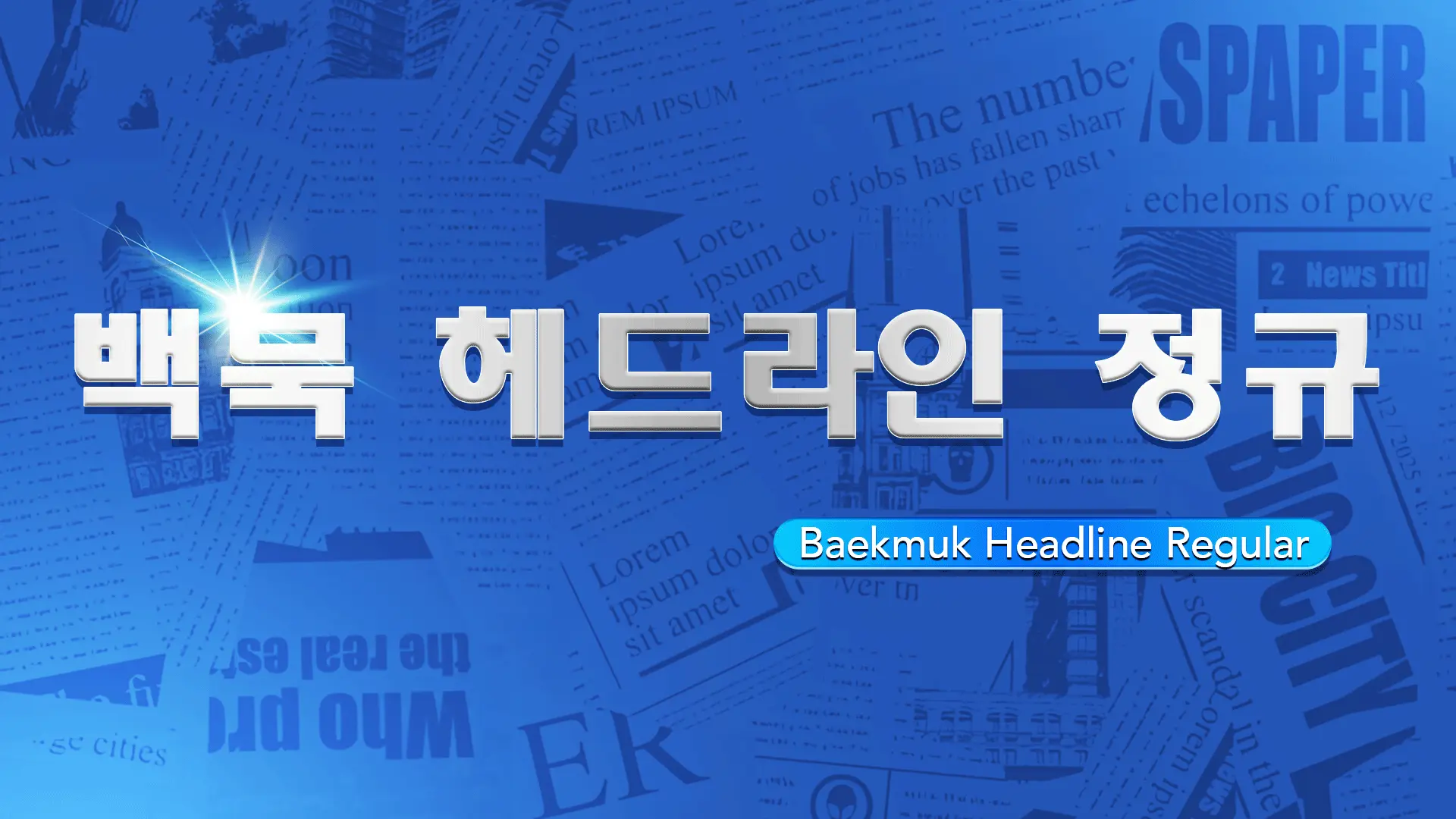
The Baekmuk Headline font family may be ideal for you if you enjoy working on an artistic design project. The lively, expressive look of this typeface, which was created by Kim Jeong-Hwan, makes it ideal for Newspaper and Magazine Headlines, Company Logos, Product Packaging, Directional Signs, Slide Titles, and other light-hearted visual projects.
Regular are the one primary font styles of the Baekmuk Headline font family. You may build dynamic, visually appealing text layouts with the distinct flair that each style offers. With crisp, readable lines and a relaxed tone.